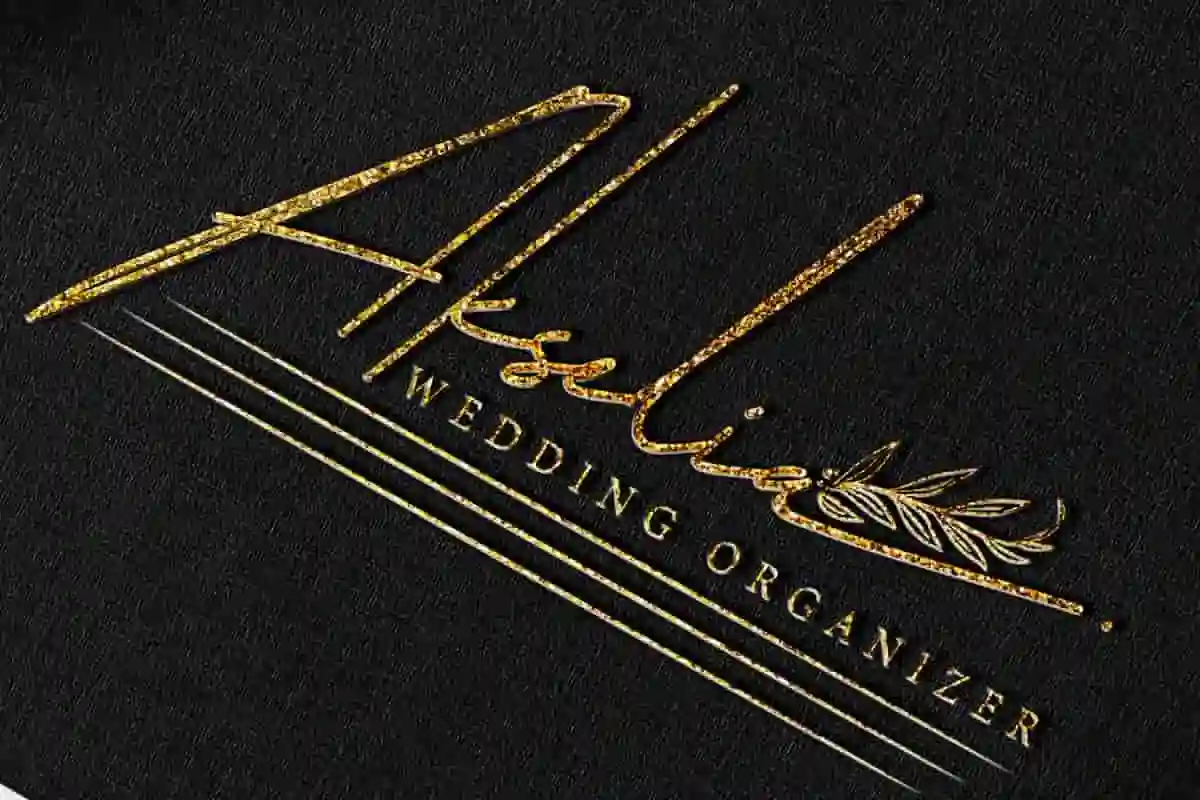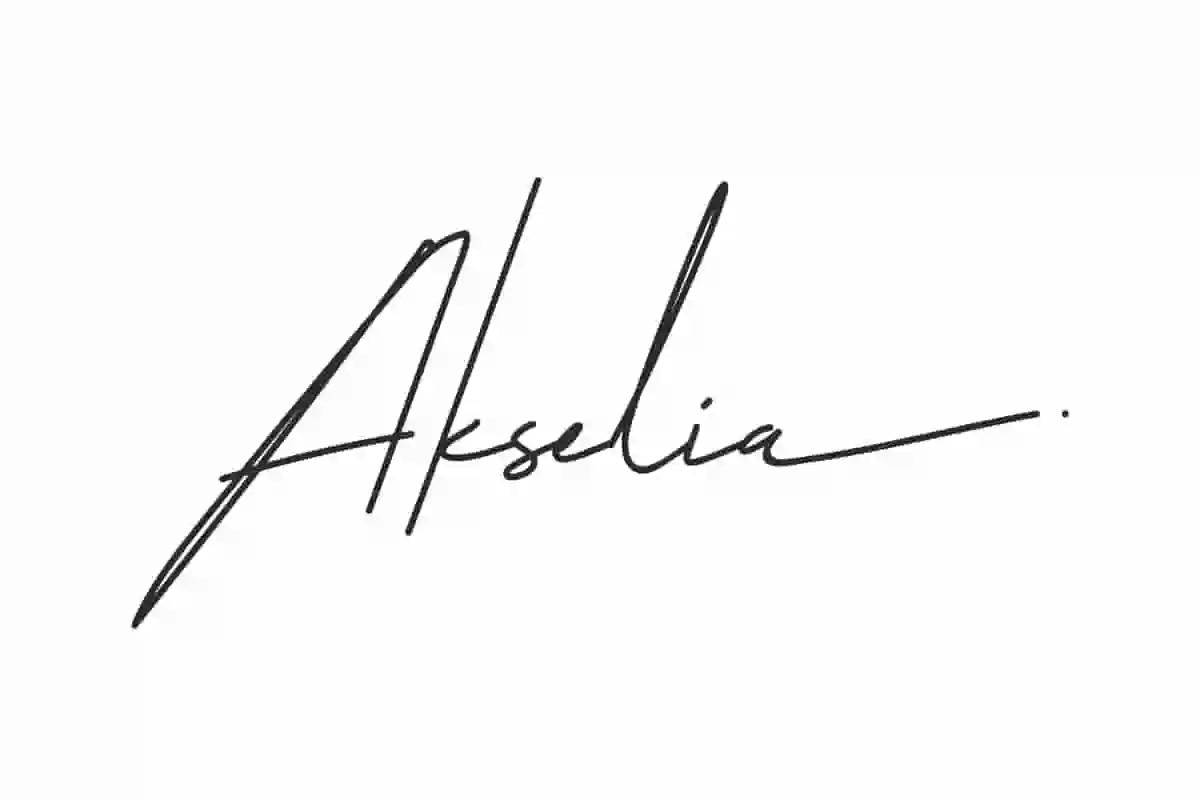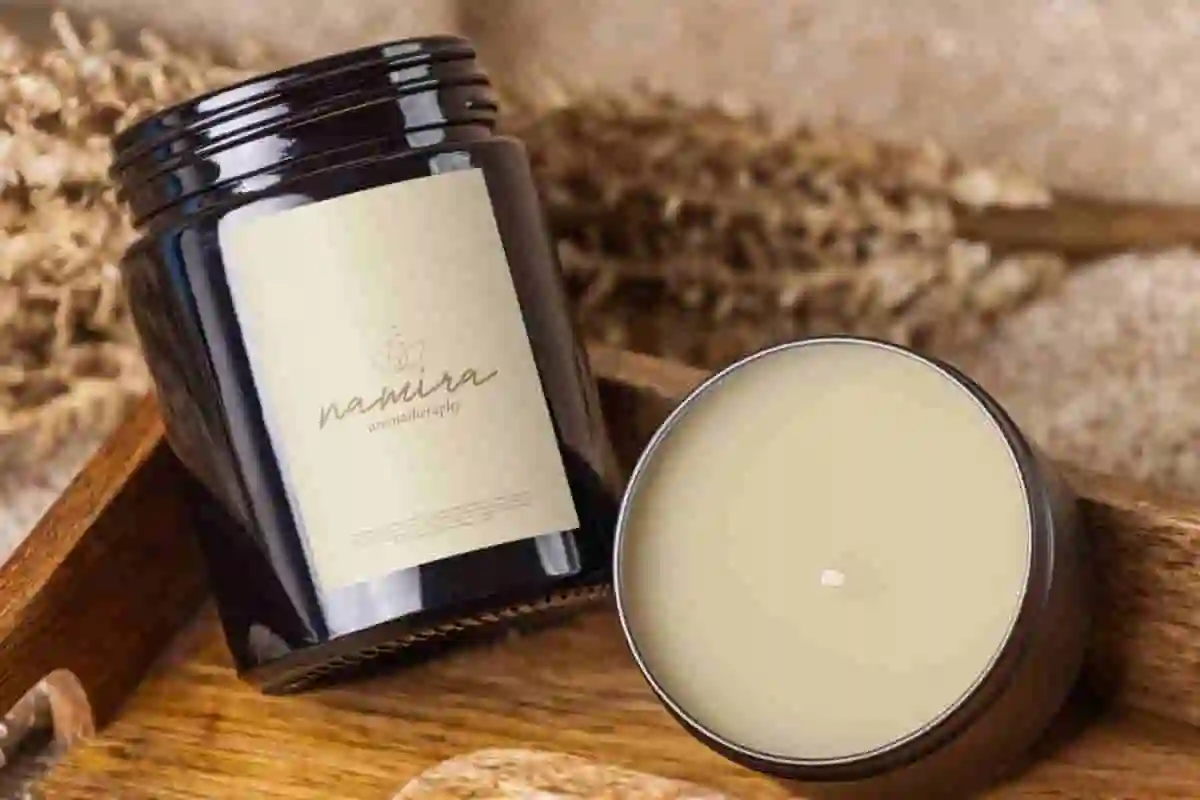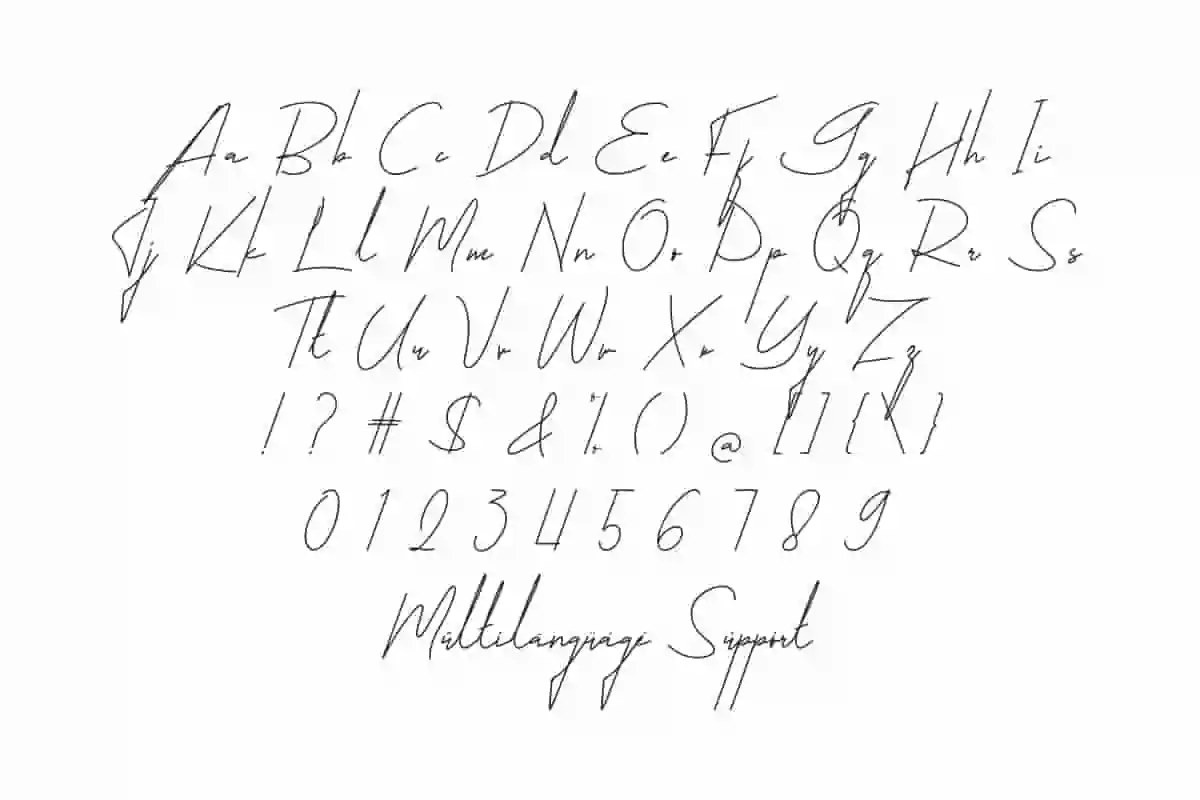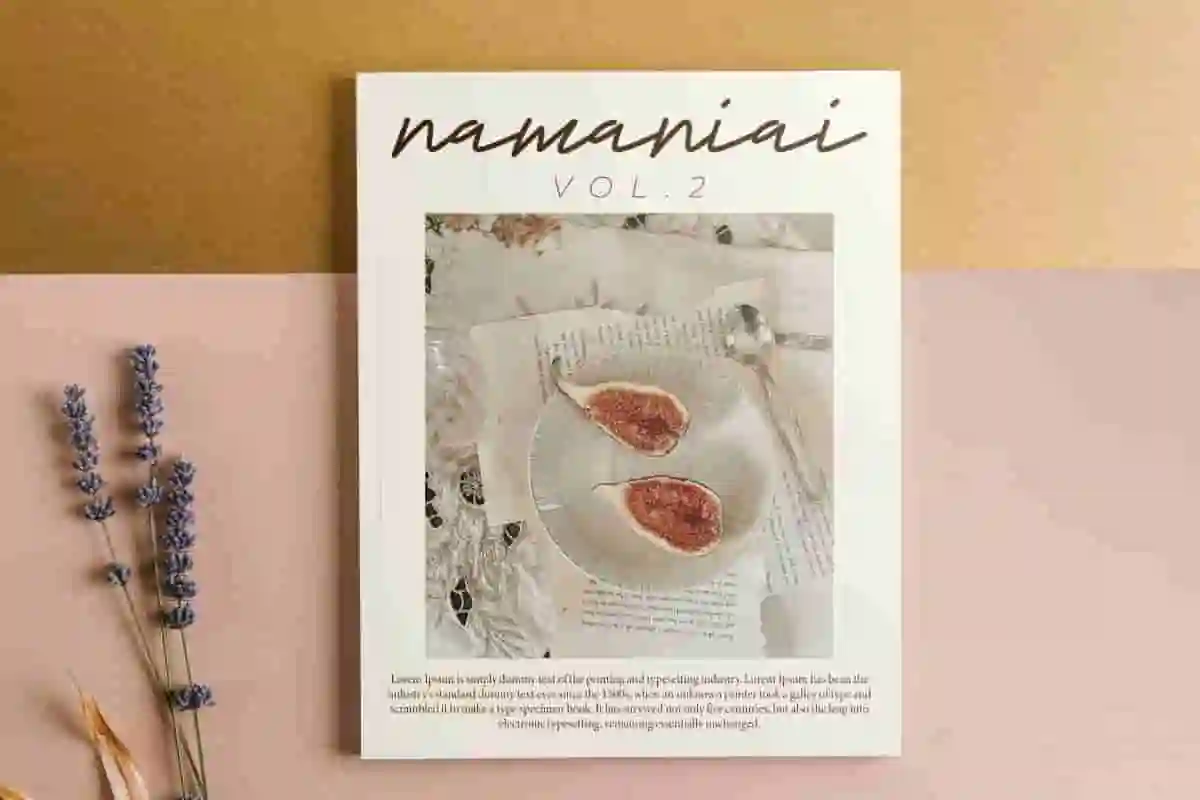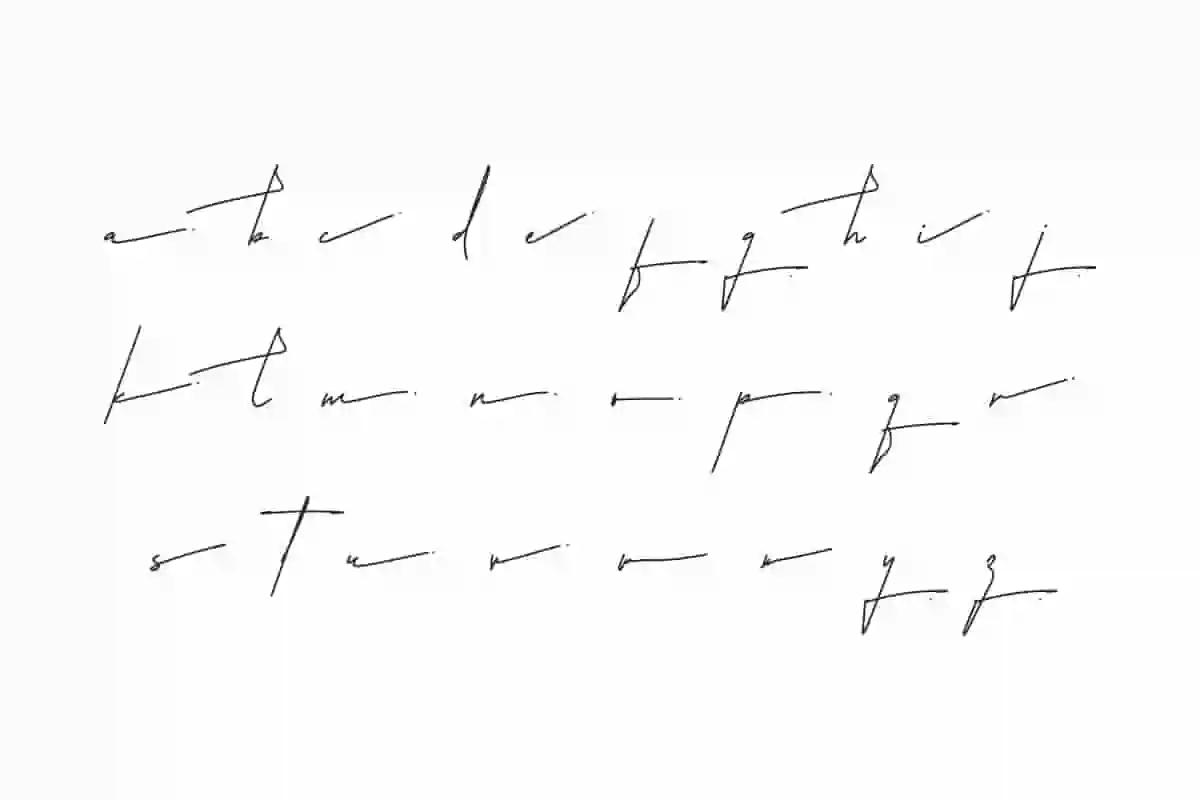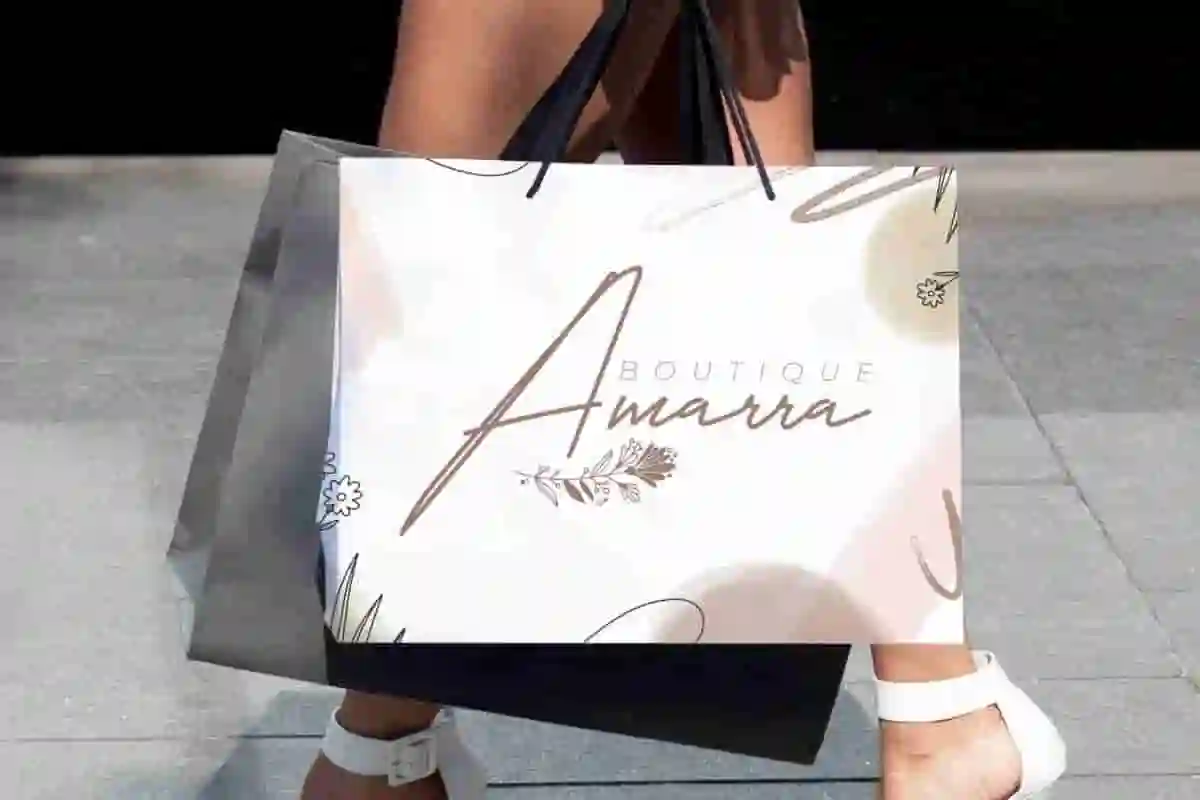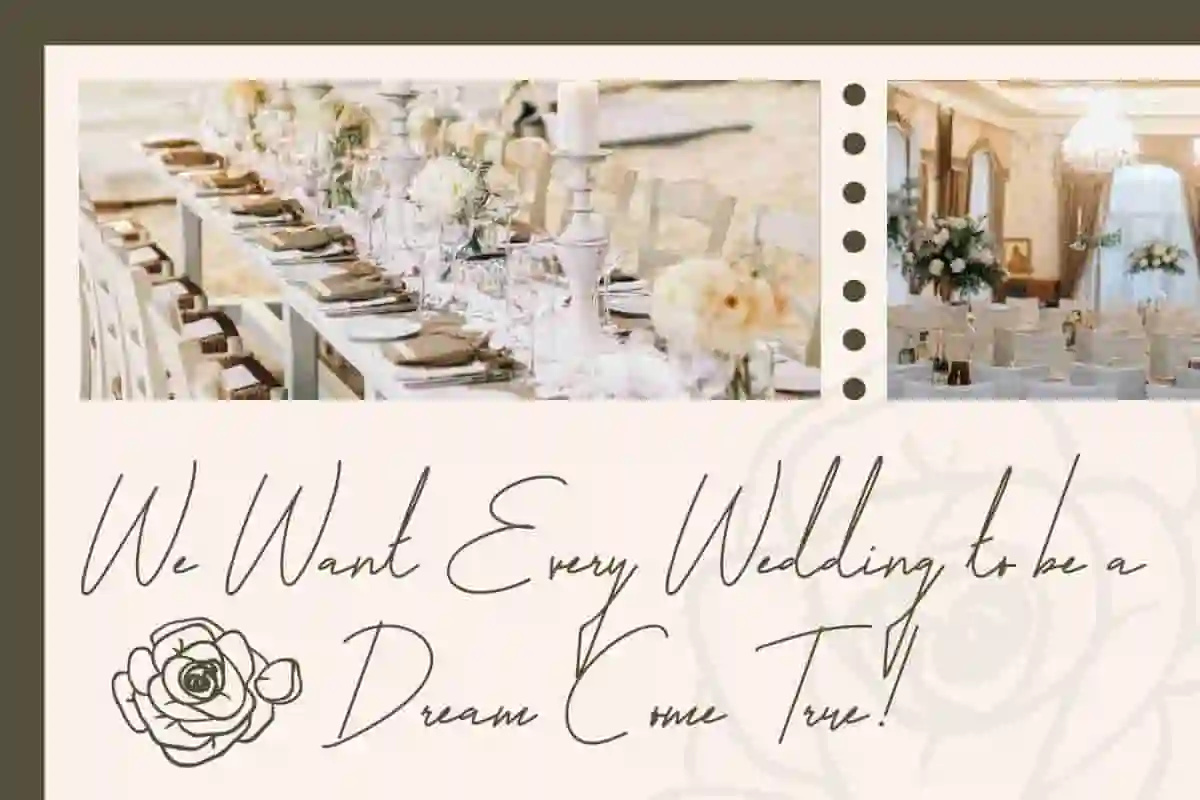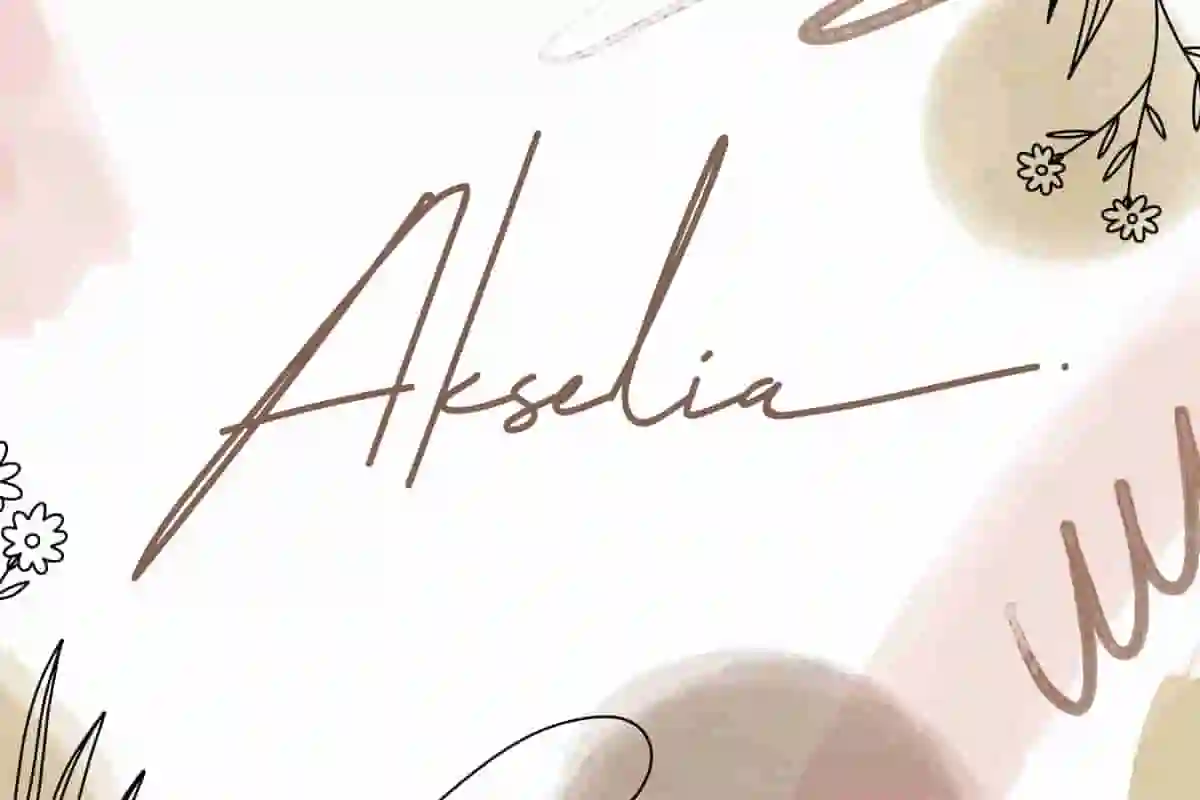
Akselia Font is a classy handwritten font with a signature style that has an old money feel, plus Alternate make this font look absolutely perfect.
Akselia Font is a meticulously crafted handwritten font that embodies understated elegance and refinement in a signature style. The old money feel of this font has a versatility that makes it suitable for use anywhere, such as blogs, branding, card designs, cover, headline, label, logo, product packaging, quotes, stickers, template, title, watermark, website, and more.
Akselia Font includes a complete set of Basic Uppercase and Lowercase Characters, Numbers, Punctuation, Symbols, and Alternates. This font represents the intersection of style and functionality, with a focus on impeccable design and attention to detail. Perfect for advertising, boutique, event organizer, fashion, printing, publishing, spa, wedding, writer, etc.